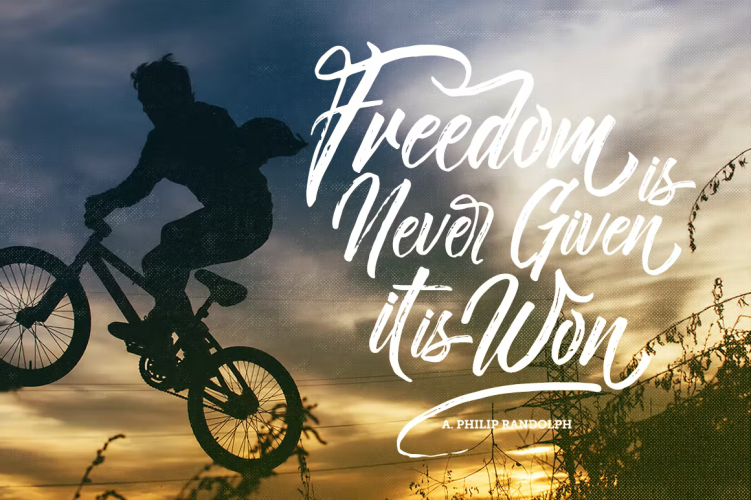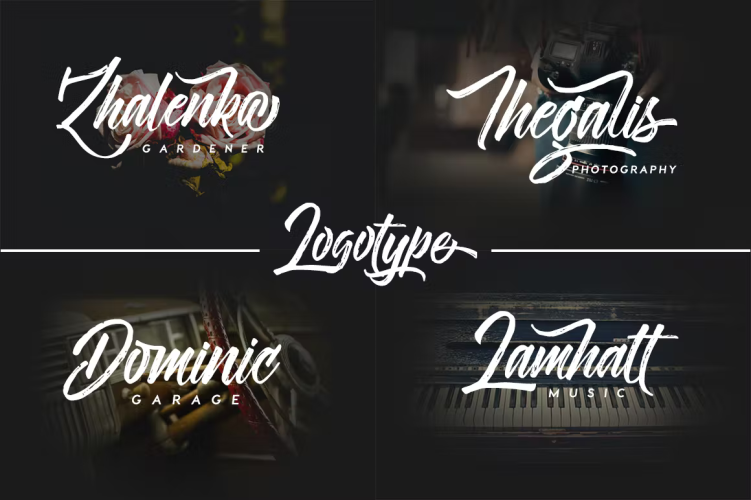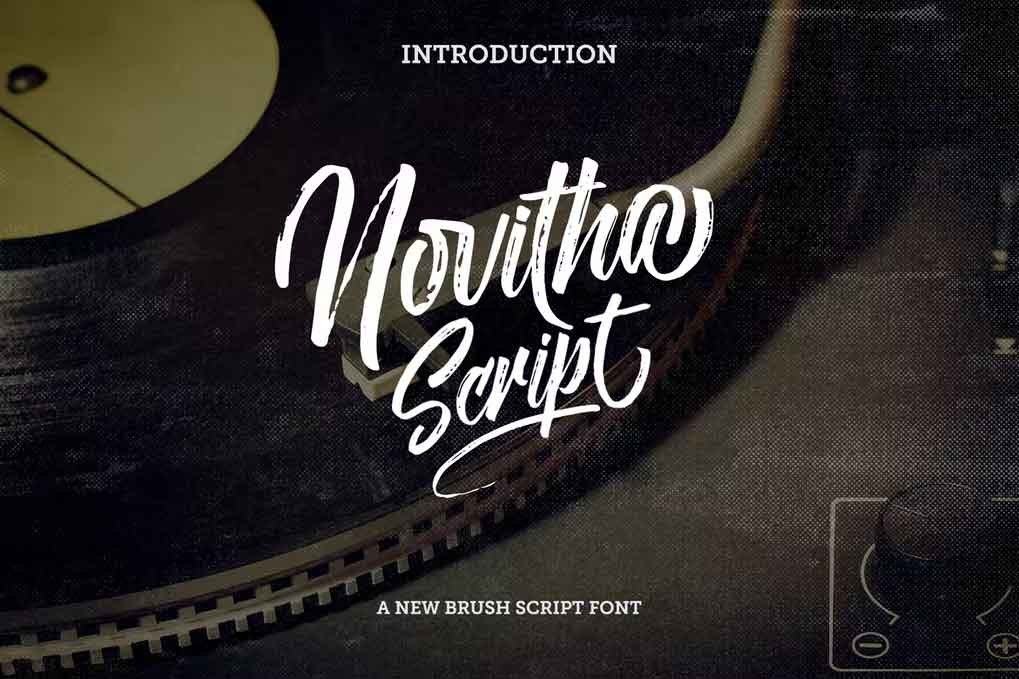
Novitha Script Font
Novitha Script a new handwritten script developed using a brush pen, As this particular font is scanned at a very high resolution, it has very strong personality as a re…
Novitha Script a new handwritten script developed using a brush pen, As this particular font is scanned at a very high resolution, it has very strong personality as a result. and I just making this font for all typographer lover. Very perfect for logotype, t-shirt design, typography poster, quote design, etc.
Where Novitha Script Font works best
Novitha Script Font brings a personal, handwritten warmth to invitations, menus and place cards.
Craft brands — coffee, cosmetics, bakery — use scripts like Novitha Script Font for signature-style logos and labels.
Pair Novitha Script Font with a plain sans for quotes, stories and Pinterest pins that feel handmade.
What is Novitha Script Font good for?
Novitha Script Font is a Script And Handwritten typeface tagged Handwritten, Novitha, Poster, Script. It works well for headlines, logos, posters, social media graphics and branding projects that need a distinctive script and handwritten look.